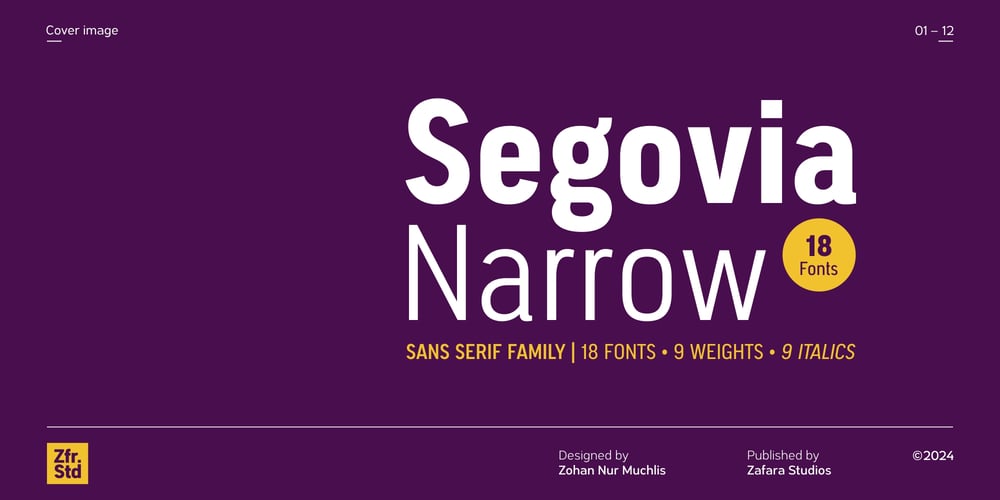
Segovia Narrow Font Family was designed by Zohan Nur Muchlis and published by Zafara Studios. Segovia Narrow contains 18 styles and family package options. Segovia Narrow is a sans-serif font designed specifically for headlines and titles. Comes with 9 weights and matching italics, making it 18 styles. It makes perfect for all creative projects. Also, some alternative glyphs will be an attractive choice. Segovia is the perfect choice for logos, titles, headlines and short blocks of text.The details:- 364 glyphs: uppercase, lowercase, multilingual, numbers, punctuation, superscript, subscripts, ordinals, fractions, stylistic alternates, arrows, currency- 9 weights: thin, extralight, light, regular, medium, semibold, bold, extrabold, black- 9 italics- 25 languages: Afrikaans, Albanian, Basque, Catalan, Danish, Dutch, English, Estonian, Faroese, Filipino, Finnish, French, Galician, German, Icelandic, Indonesian, Irish, Italian, Malay, Norwegian Bokmål, Portuguese, Spanish, Swahili, Swedish, Zulu